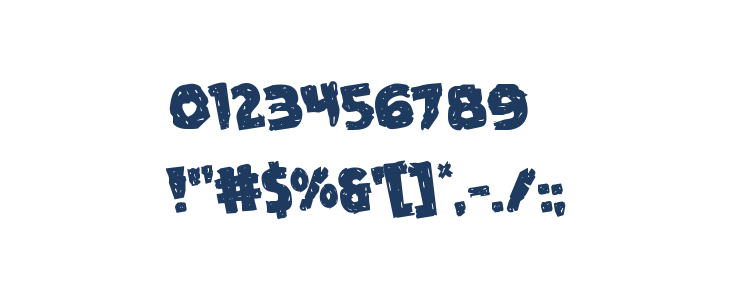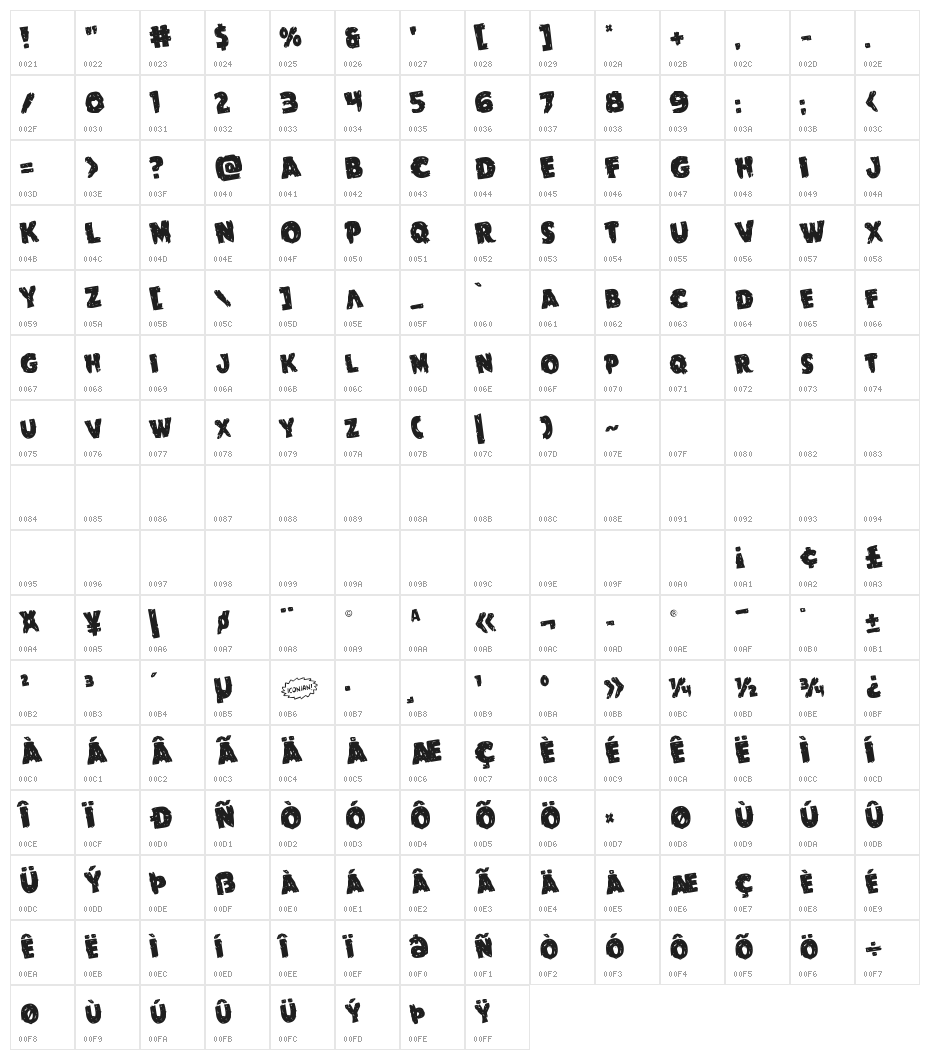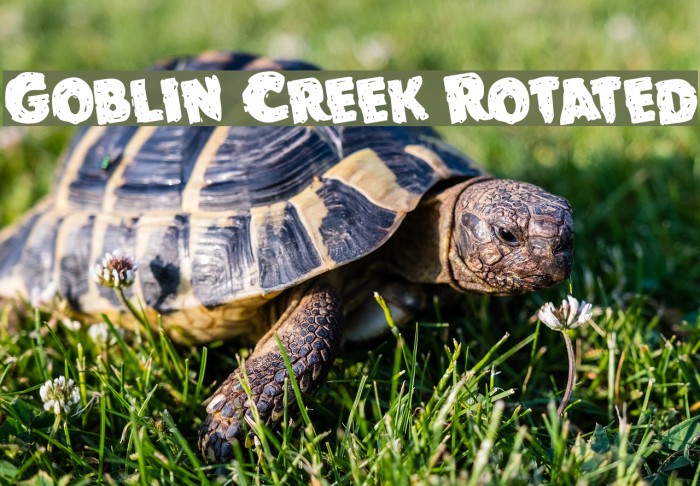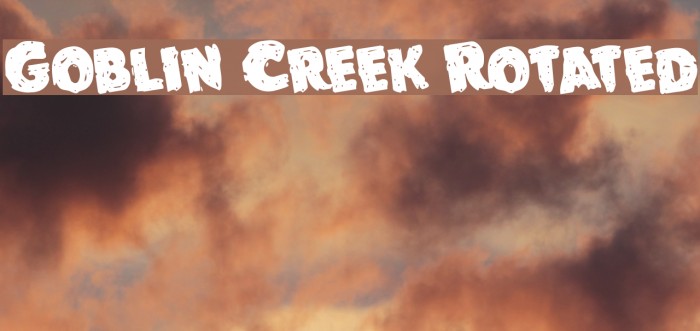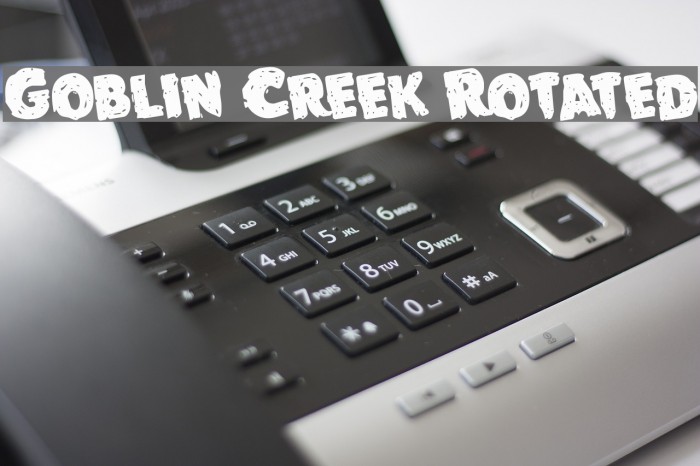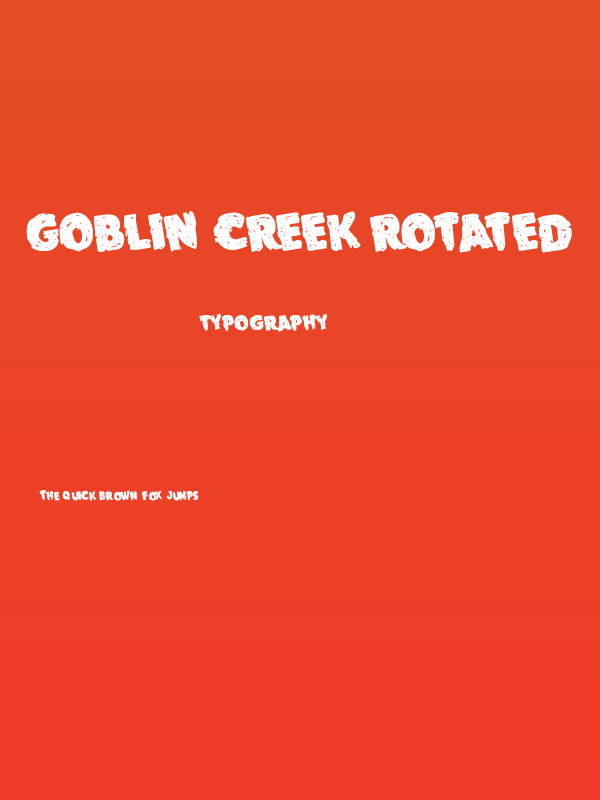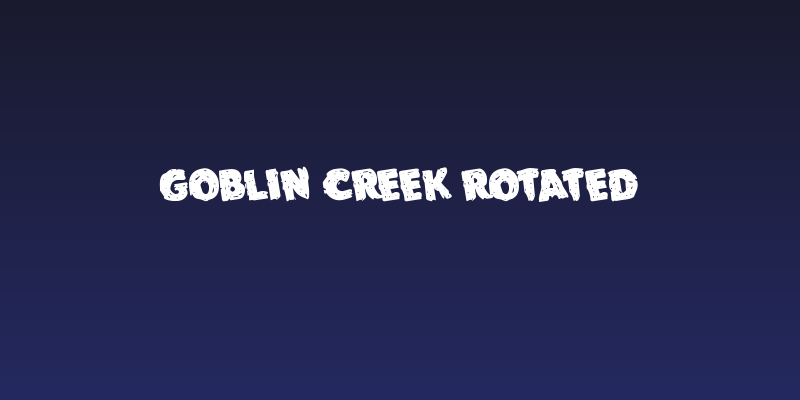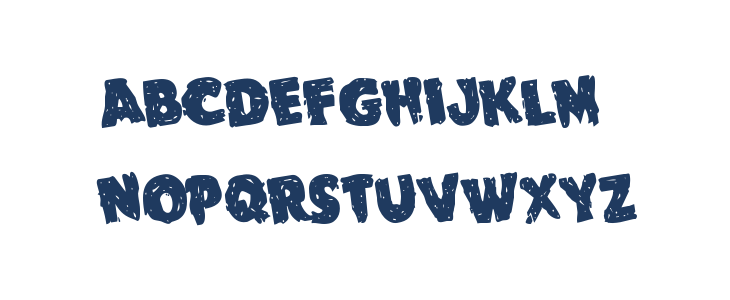
Goblin Creek Rotated Font
Goblin Creek Rotated Description
This font features a bold and playful design with a rough, textured appearance that gives it a unique, hand-crafted feel. The characters are heavily stylized, with irregular edges and a slightly chaotic look, reminiscent of graffiti or street art. The uppercase and lowercase letters maintain a consistent style, while the numbers and special characters complement the overall aesthetic. This font is ideal for projects that require a fun, edgy, and eye-catching typeface.
| Proposed Projects | Perfect for posters, album covers, video game graphics, and any creative project needing a bold statement. |